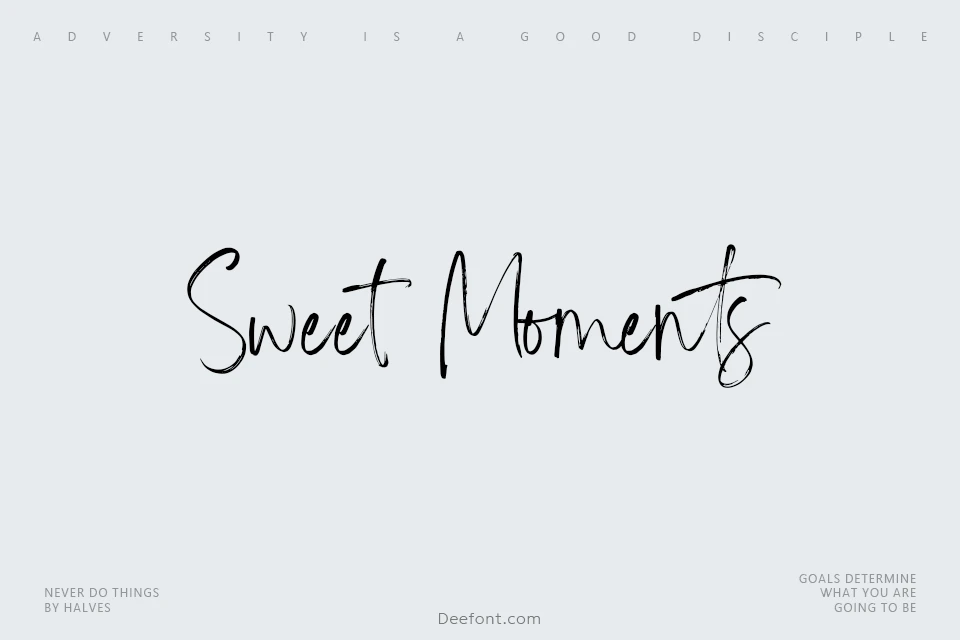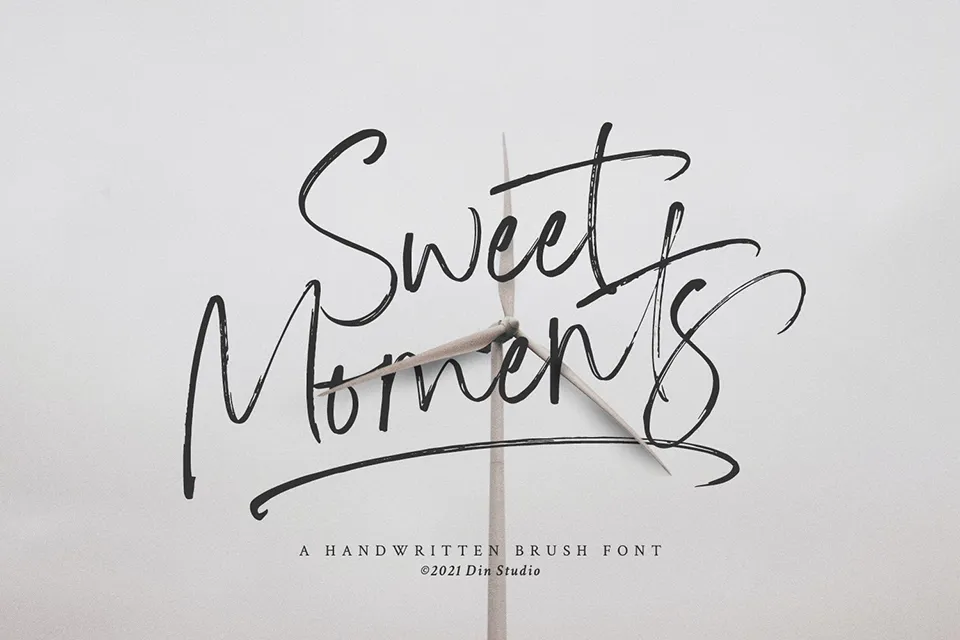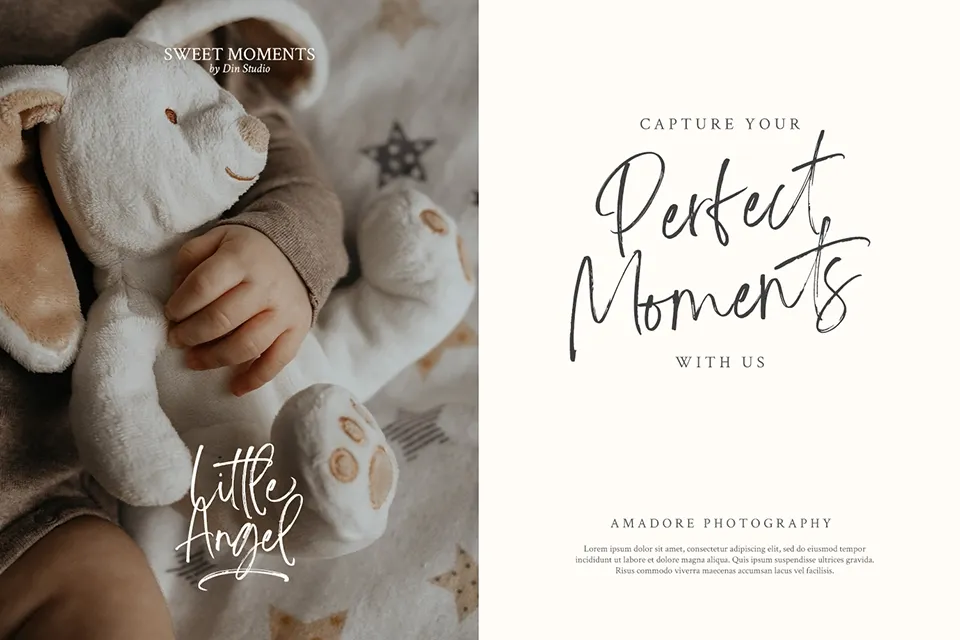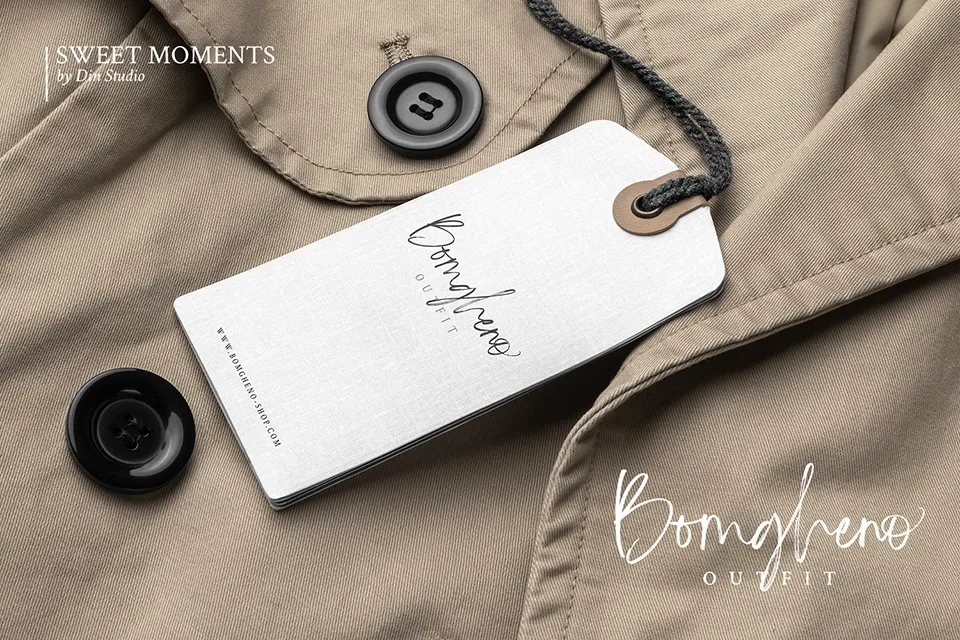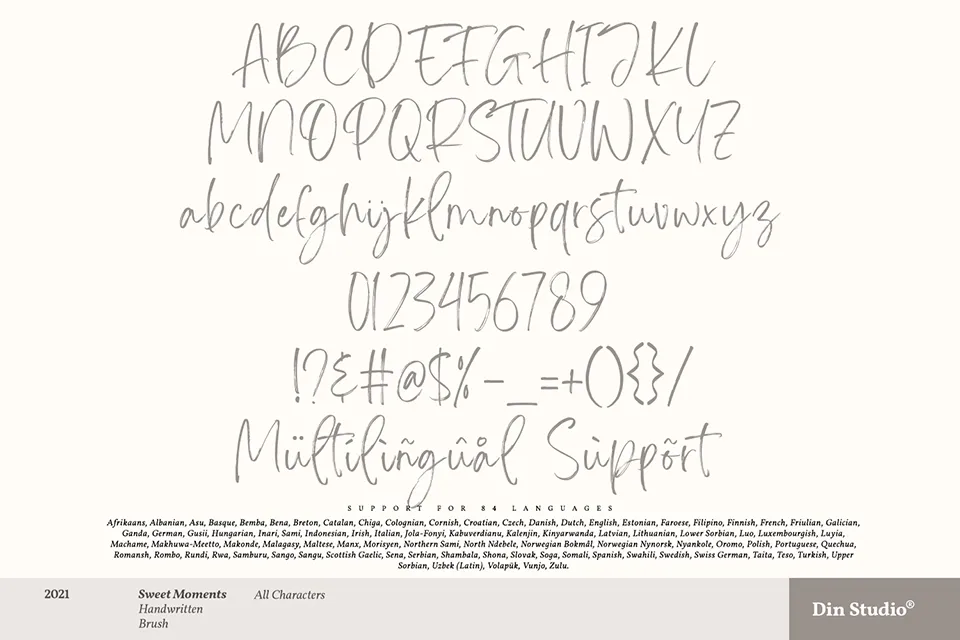
Sweet Moments Font
Sweet Moments is a handwritten brush font that encapsulates the essence of luxury and elegance. Designed with passion and sophistication in every curve, this font offers beautiful ligatures, stylistic sets, alternates, and swashes, making it perfect for headings, logos, business cards, printed quotes, invitations, packaging, and branding for websites or social media. With multilingual support for 84 languages and PUA encoding, Sweet Moments is a versatile choice to elevate your creative projects.